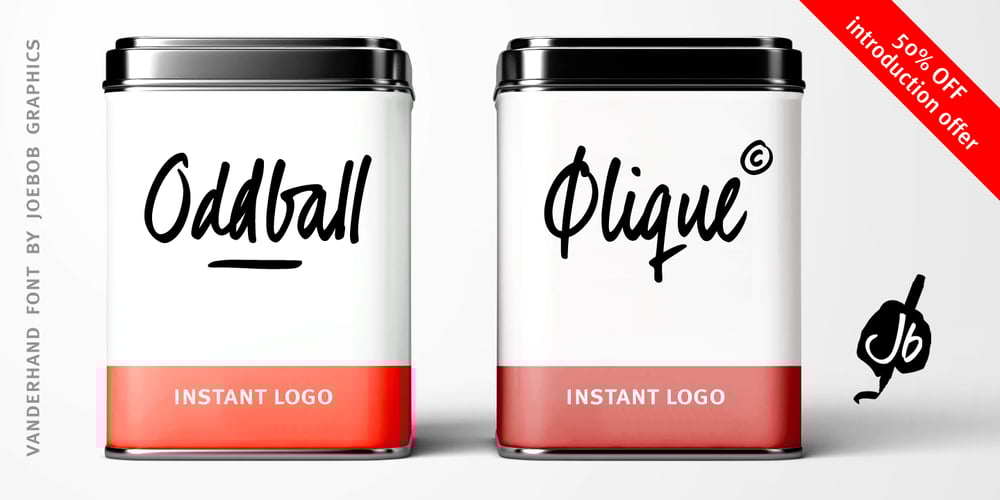
VanderHand Font Family was designed by Jeroen “Joebob” van der Ham and published by JOEBOB graphics. VanderHand contains 1 styles and family package options. The ‘VanderHand’ font is a friendly and easy to use handwritten font. It is so loaded with ligatures it could easily pass for actual handwriting. The font was created with a felt-tip brush pen and so there are natural thick and thin parts in the characters. All writing was done upright with tightly fit characters. As a result this font has a unique ‘instant logo’ quality. But you should really try this out for yourself.O, and the font was written by Jeroen van der Ham. It’s his handwriting. That’s why it’s called VanderHand.